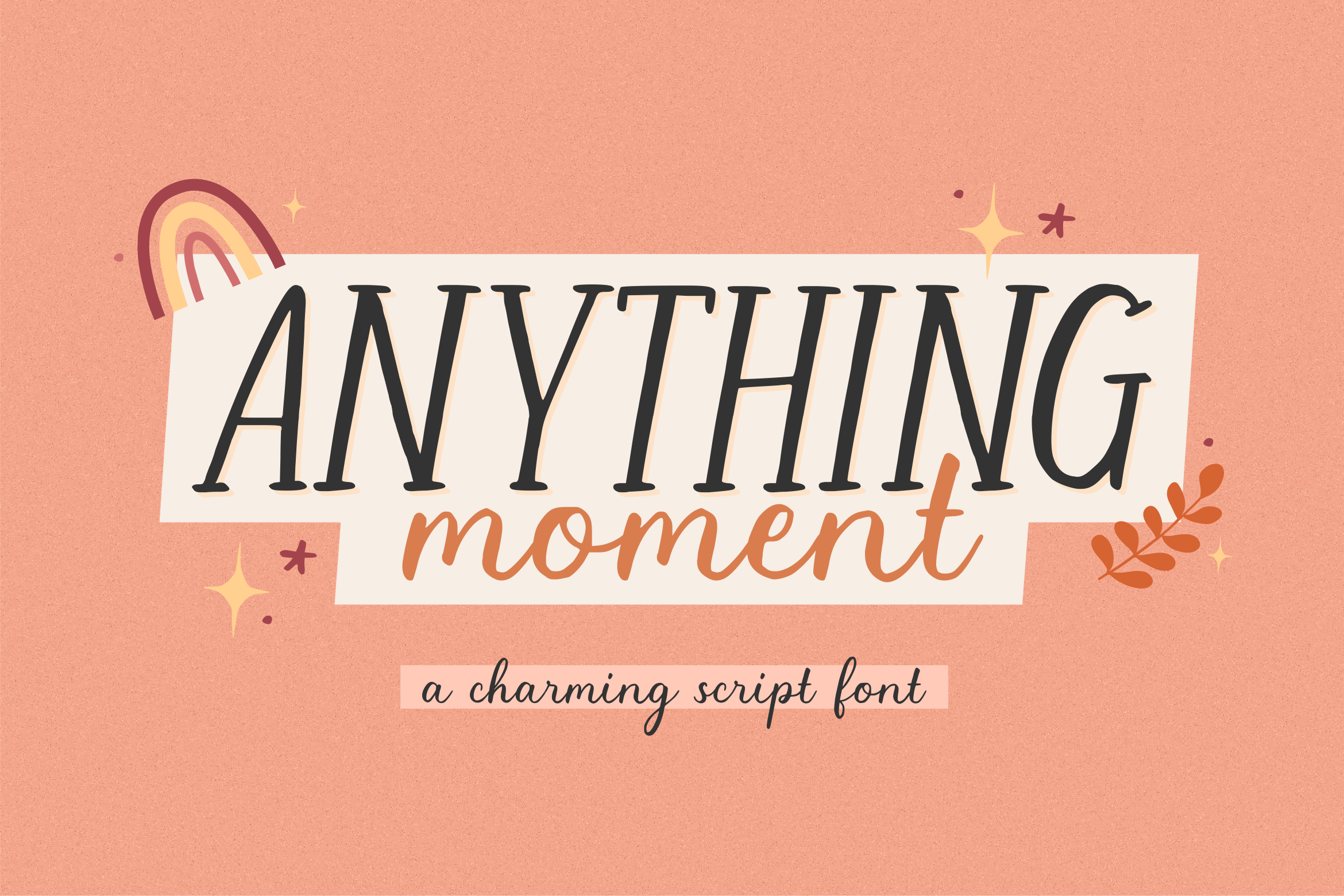
Anything Moment Charming Script Font
Proudly Presenting, Anything Moment A Charming Script Font.
Anything Moment is perfect for any titles, logo, product packaging, branding project, megazine, social media, wedding, or just used to express words above the background.